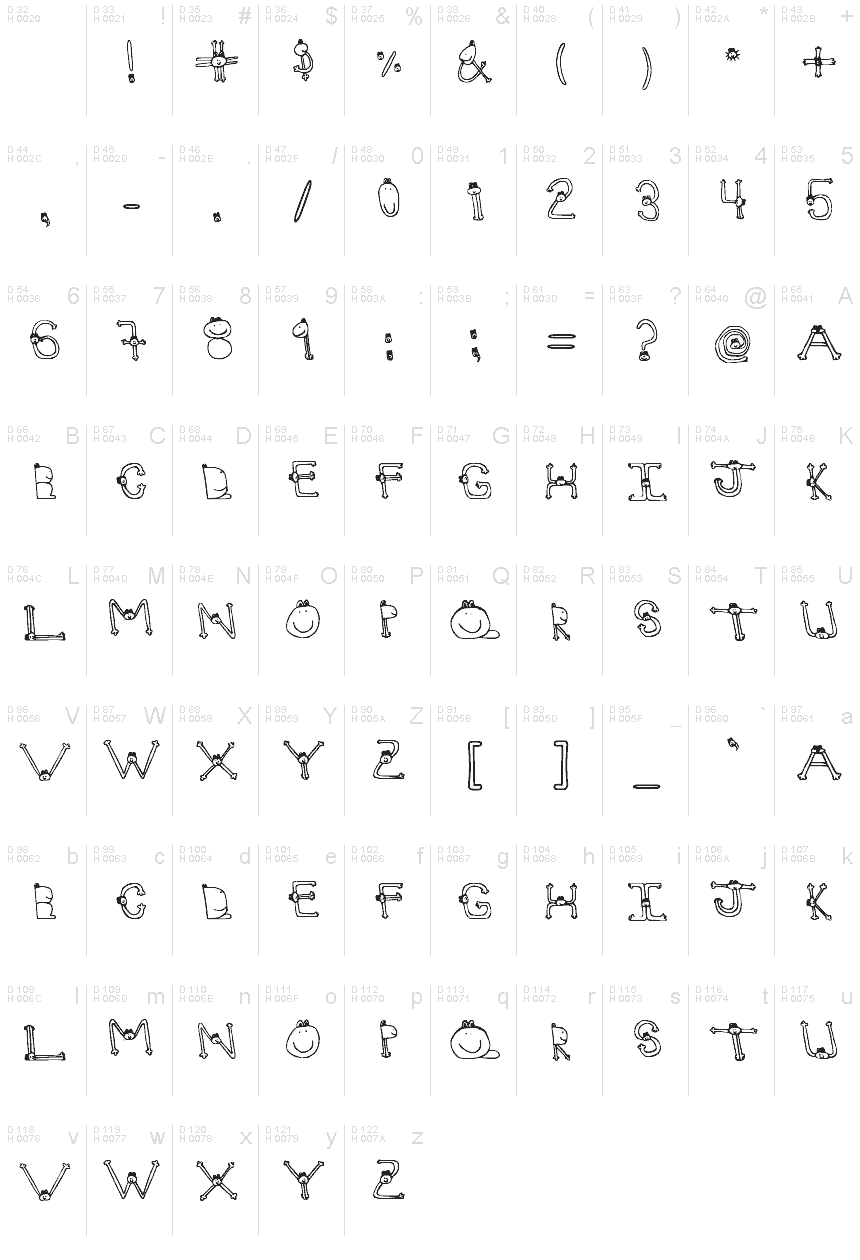
Frogs Forever Regular
Frogs Forever font by SydneyRose is a playful and cartoonish display typeface that captures a whimsical, lighthearted mood. Featuring outlined decorative motifs reminiscent of frogs, this font delivers an imaginative flair to any design it touches. Uniquely defined and eye-catching, it promises to elevate your creative projects with its unparalleled charm.
Use Frogs Forever in game designs, comic books, posters, invitations, branding projects, websites, advertising materials, children’s books or apps. This free amusingly designed font works best when style and fun are key elements.